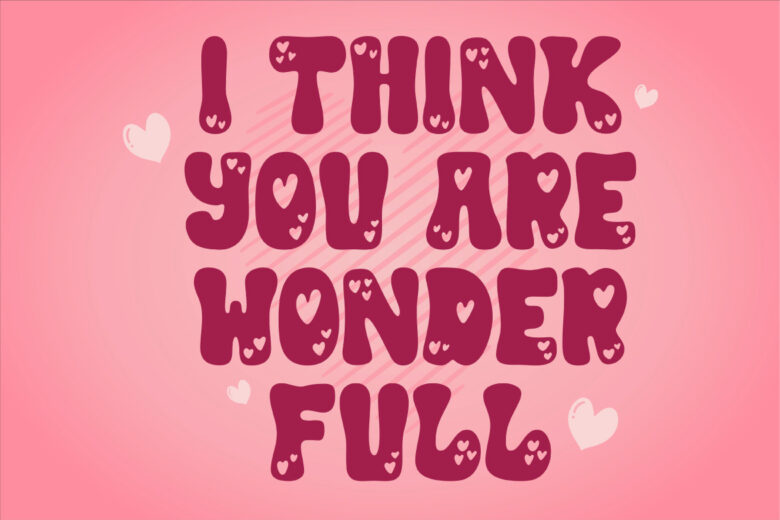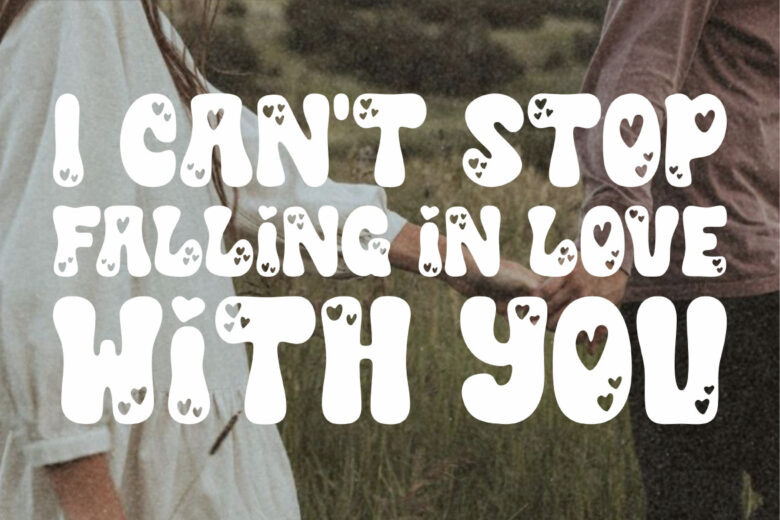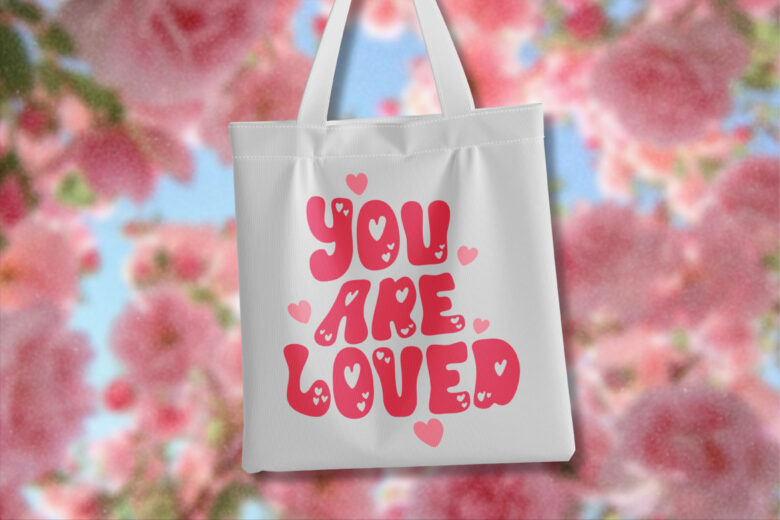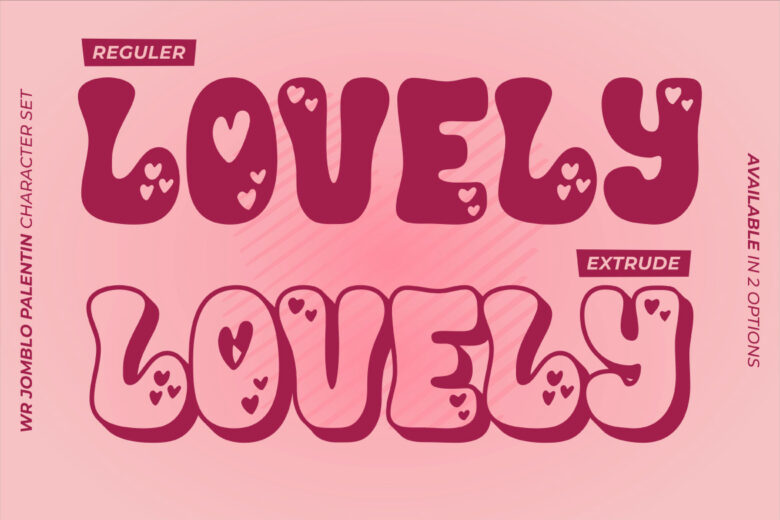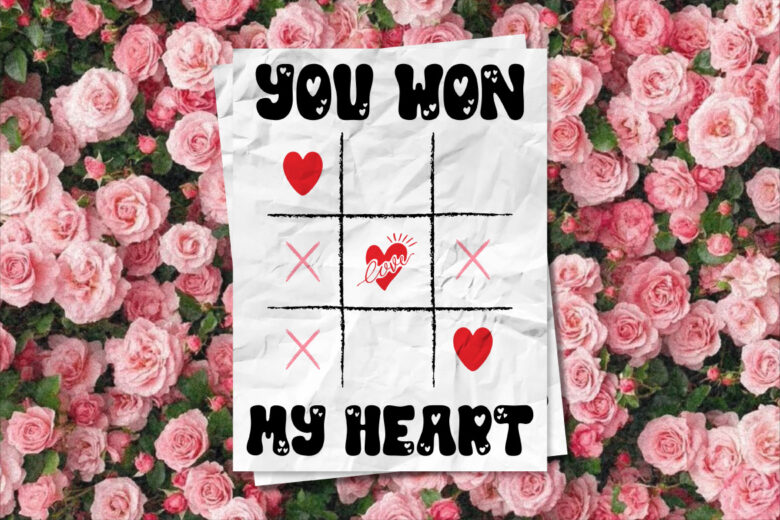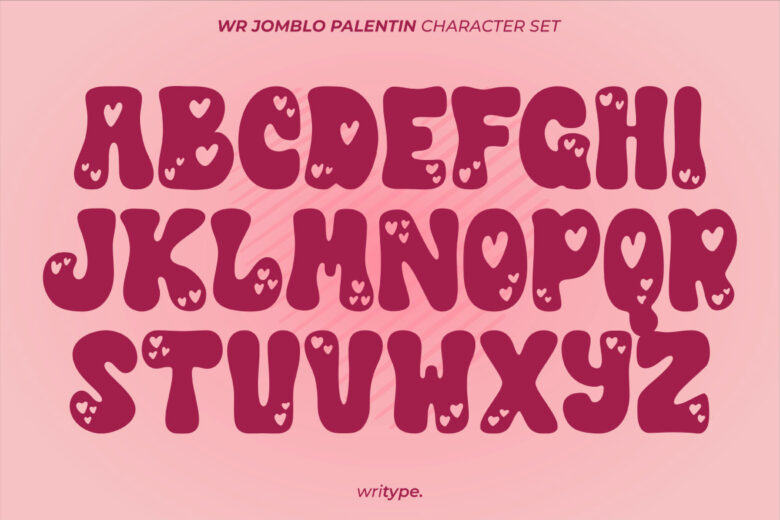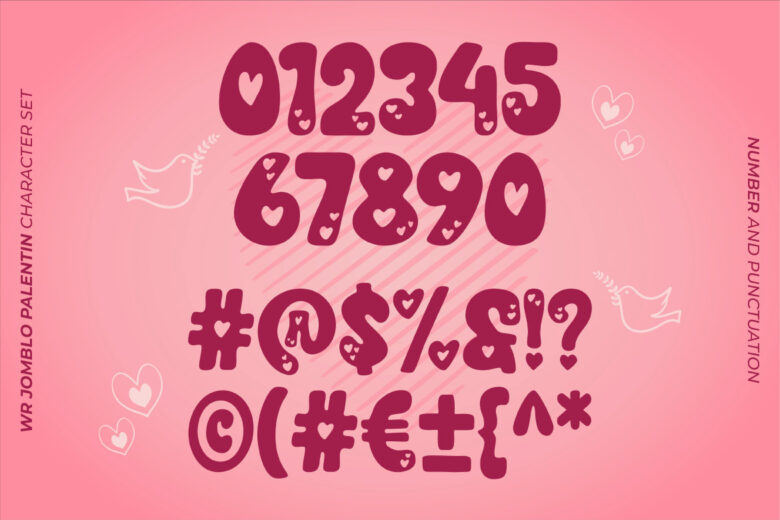
WR Jomblo Palentin - Retro Valentine Font
WR Jomblo Palentin – Retro Valentine Font
WR Jomblo Palentin is a bold display font with a playful twist—featuring heart-shaped details in every character. Available in two styles, Regular & Extrude, it’s perfect for romantic designs, posters, branding, and any project that needs a touch of love and charm.